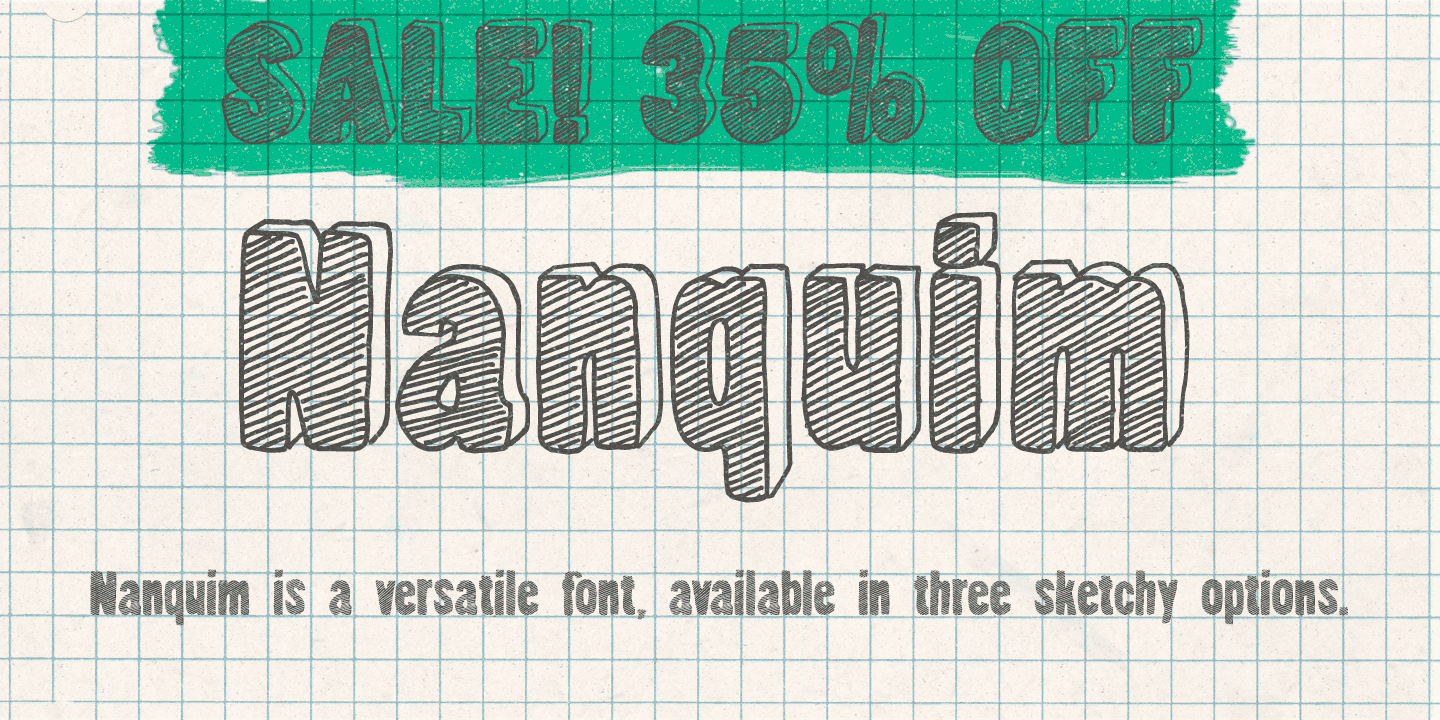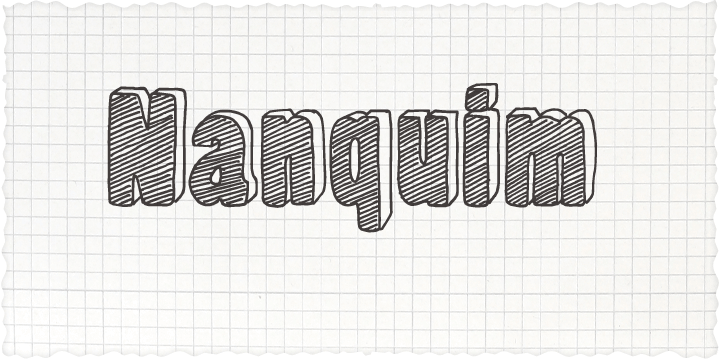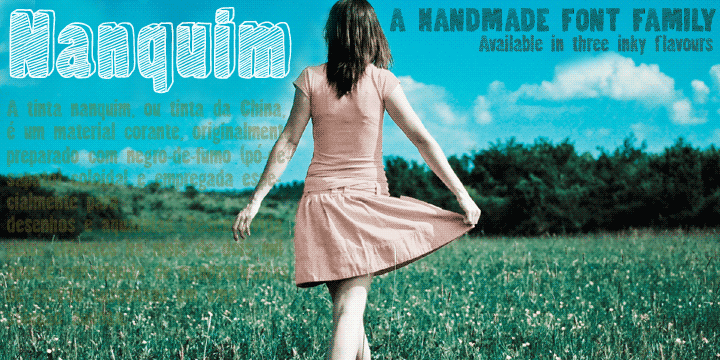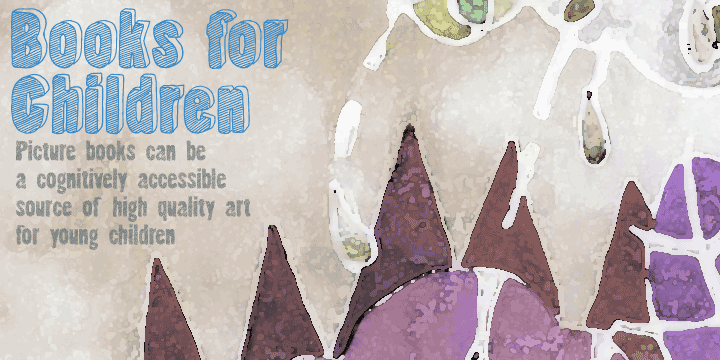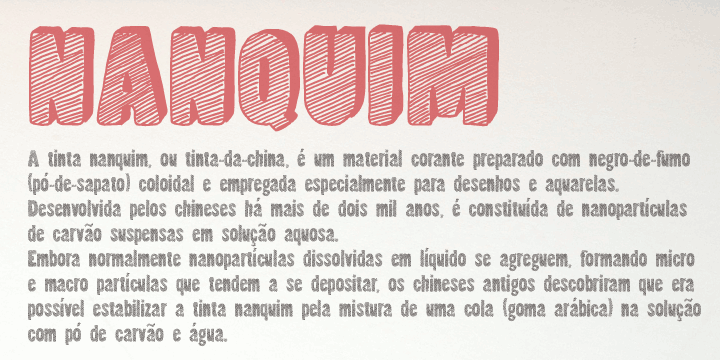
About the Nanquim Font
About Nanquim Font Family Nanquim is a versatile font, available in three sketchy options. At display sizes the line art is very eye-catching. At smaller sizes it turns out like textured faces. Always with a pleasant handmade feel.Nanquim characters were hand drawn with pen and India ink on film, like we use to do when preparing artwork for screenprint.